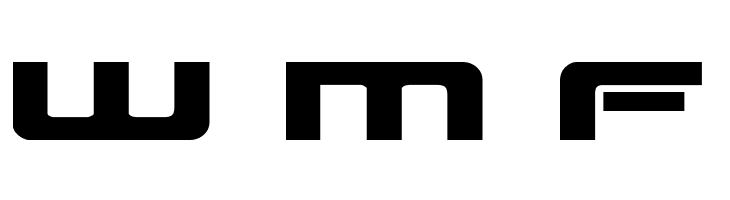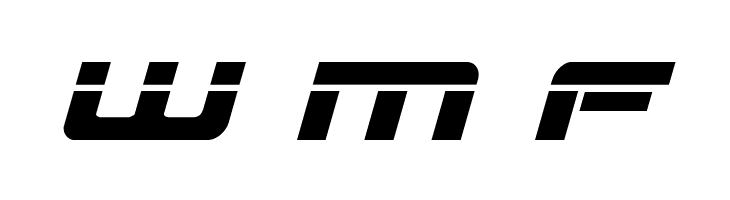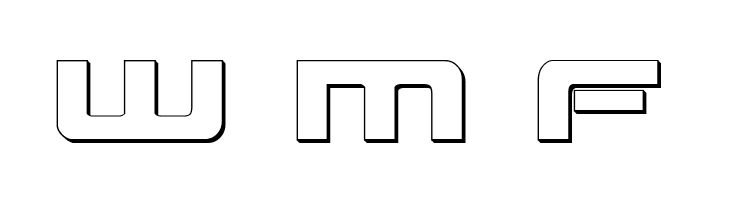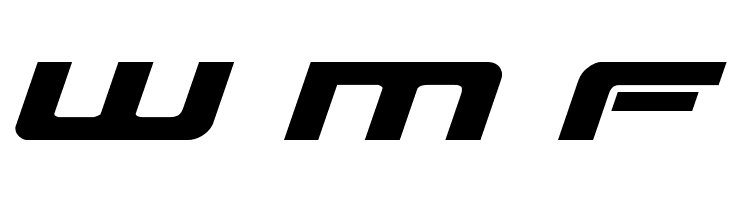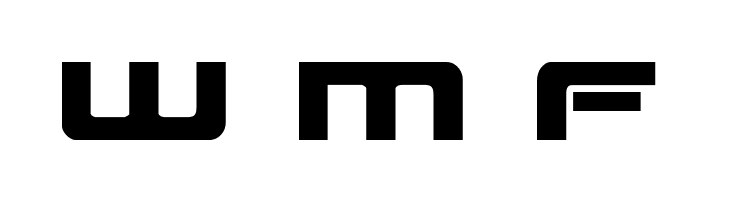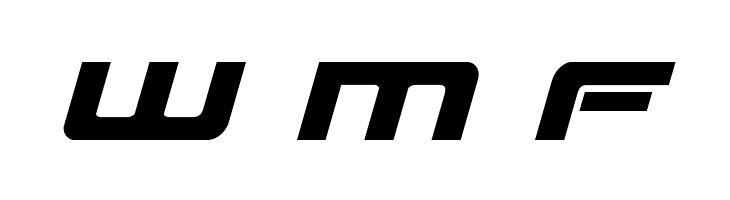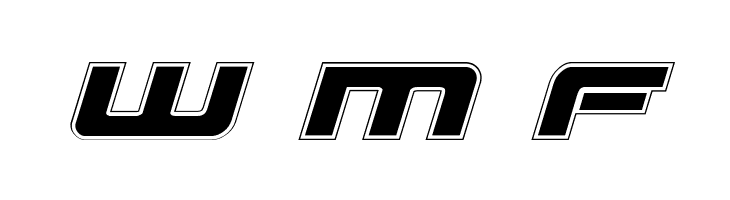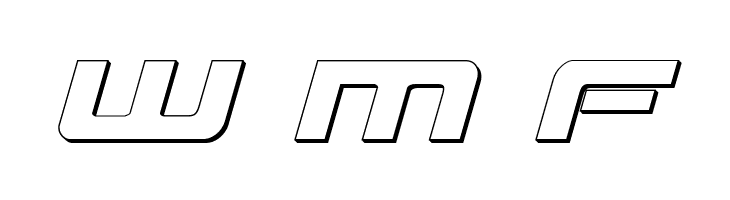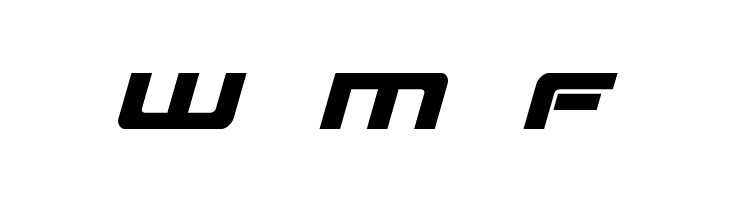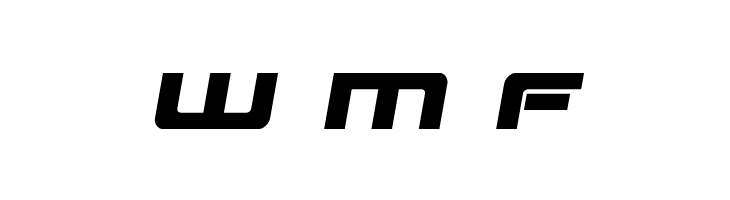
Strikelord Condensed Italic Font
A bold, condensed, and italicized futuristic font with angular, geometric characters.
Strikelord Super-Italic Font
A bold, futuristic italic font with sharp, angular lines.
Strikelord Condensed Font
A bold, futuristic, and condensed font with geometric and angular characters.
Strikelord Font
A bold, futuristic font with geometric and angular design.
Strikelord Italic Font
A bold, italicized font with a futuristic and dynamic design.
Strikelord Expanded Italic Font
A bold, italicized, and expanded font with a futuristic and angular design.
Strikelord Laser Italic Font
A bold, italicized font with a futuristic and angular design.
Strikelord Regular Font
A bold, futuristic font with angular, geometric shapes.
Strikelord Semi-Italic Font
A bold, futuristic font with a semi-italic slant and sharp angles.
Strikelord Laser Regular Font
A futuristic, geometric font with a bold, stencil-like design.
Strikelord Expanded Font
A bold, futuristic font with angular, geometric letterforms and an expanded width.
Strikelord Academy Regular Font
A bold, futuristic font with geometric and angular design.
Strikelord Title Italic Font
A bold, italicized font with a futuristic and dynamic style.
Strikelord Academy Italic Font
A bold, italic, futuristic font with angular, geometric shapes and a double-layer outline.
Strikelord Title Font
A bold, futuristic font with geometric shapes and sharp angles.